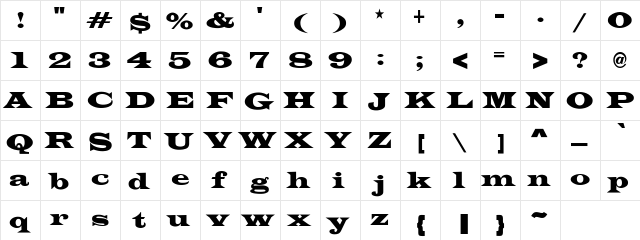
JamesWideCnd-No Regular Font Preview
JamesWideCnd-No Regular
Design Context for JamesWideCnd-No Typeface
JamesWideCnd-No takes a measured approach to typography — its balanced proportions and neutral character make it a reliable workhorse for both digital and print work.